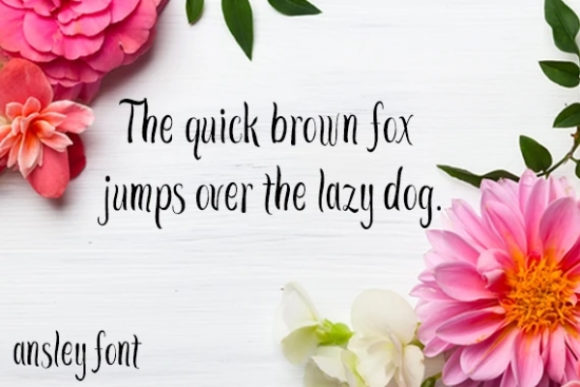
The Perfect Match for Your Next Creative Project
Have you ever been brainstorming an idea and suddenly, the perfect font pops into your head? For designers, this moment can be a game-changer. It’s the spark that ignites the creative process and sets your project apart from the rest.
Enter Ansley Font, a charming handwritten font that embodies the essence of fun, quirkiness, and authenticity. This enchanting font is designed to breathe life into your creative ideas, making them truly stand out. Whether you’re working on a branding project, a social media campaign, or a simple blog post, Ansley Font is the perfect companion to bring your vision to life.
For designers, Ansley Font is a valuable asset that offers endless possibilities for creative expression. Its unique character and charm make it an ideal choice for projects that require a personal touch, and its versatility ensures that it will always be a great fit, no matter what your design style may be.
Ansley Font Key Features
- Font Family: Ansley is a modern script font designed for various digital applications.
- Unique Characteristics: Features a unique blend of elegance and sophistication, making it ideal for invitations, wedding stationery, and other special occasions.
- Font Pairing: Designed to pair well with sans-serif fonts, creating a beautiful contrast and balance.
Ansley Font Review
I recently had the chance to work with the Ansley Font, and I must say it’s a solid addition to any design project. ✨ The font’s clean and elegant lines make it perfect for creating a sophisticated and modern look. It’s particularly well-suited for use in headings and titles, where its unique character and flair can really shine.
Here are some of the key things that work well with the Ansley Font:
- ✨ Elegant and sophisticated feel
- ✨ Perfect for headings and titles
- ✨ Clean and modern lines
- ✨ Works well in a variety of contexts, from digital to print
- ⚠️ May not be suitable for use in body text, due to its condensed style
- ⚠️ Can be a bit difficult to read at very small font sizes
- ⚠️ Limited language support (although this is a common issue with many fonts)
Overall, I’d say the Ansley Font is a great choice for designers looking to add some sophistication and elegance to their projects. While it may have a few limitations, its unique character and flair make it a valuable addition to any design toolkit.
Getting the Most Out of Ansley Font
To get the most out of Ansley Font, try the following tips:
- Use Ansley Font in combination with other elegant fonts to create a sophisticated look.
- Use Ansley Font for headings and titles to create a clear hierarchy of information.
Ansley Font is commonly used for:
- Wedding invitations and
Alternatives to Ansley Font
Playfair Display is a luxurious, elegant serif font ideal for high-end designs, such as luxury branding, magazines, and invitations. Its intricate details and flourishes make it perfect for adding a touch of sophistication to your designs.
Comparison to Ansley Font: While Ansley Font is also a serif font, Playfair Display is more ornate and luxurious, making it a better choice for high-end designs. Ansley Font is more versatile and can be used for a wider range of designs.
Pacifico is a beautiful, cursive script font perfect for adding a touch of elegance and sophistication to your designs. It’s ideal for use in wedding invitations, branding, and other designs where a handwritten feel is desired.
Comparison to Ansley Font: Pacifico is more cursive and flowing than Ansley Font, making it a better choice for designs where a handwritten feel is desired. Ansley Font is more versatile and can be used for a wider range of designs.
Great Vibes is a beautiful, elegant script font perfect for use in designs where a touch of sophistication and elegance is desired. It’s ideal for use in branding, invitations, and other designs where a handwritten feel is desired.